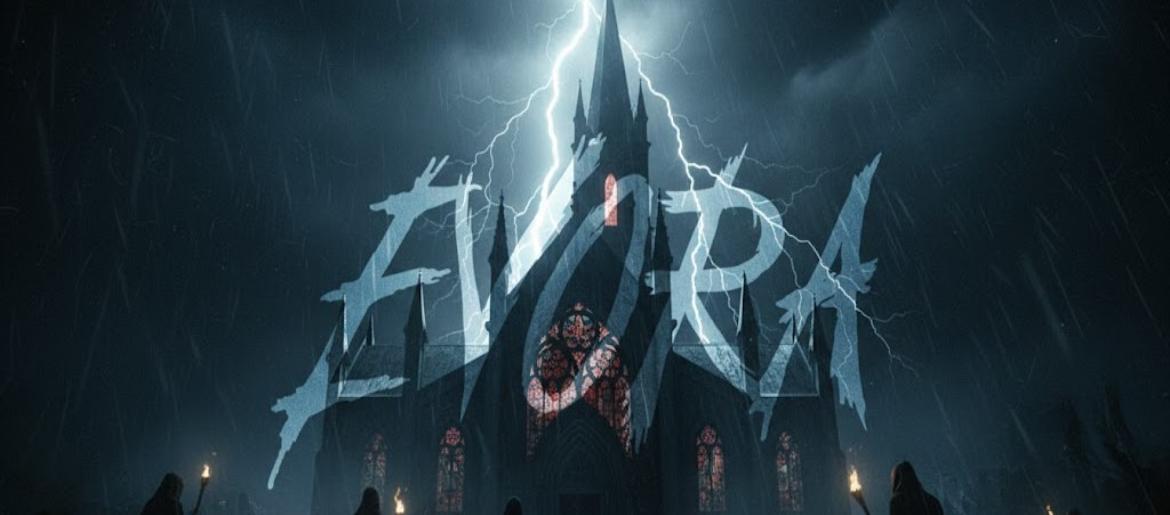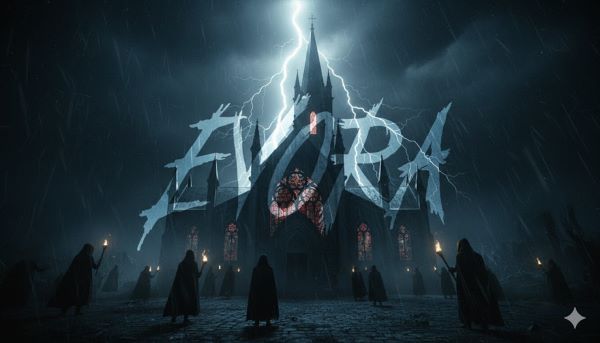
Evora
Evora font
Evora Font is a hand-lettered typeface with organic strokes and a crafted feel. It reflects artistic imperfection and human touch, making it ideal for logos, posters, invitations, branding, packaging, and creative projects that seek warmth, personality, and an expressive, authentic visual style across print and digital media applications worldwide today.
➤ Font Name: Evora
➤ Designer: Marek Janík
➤ Style: Handwritten